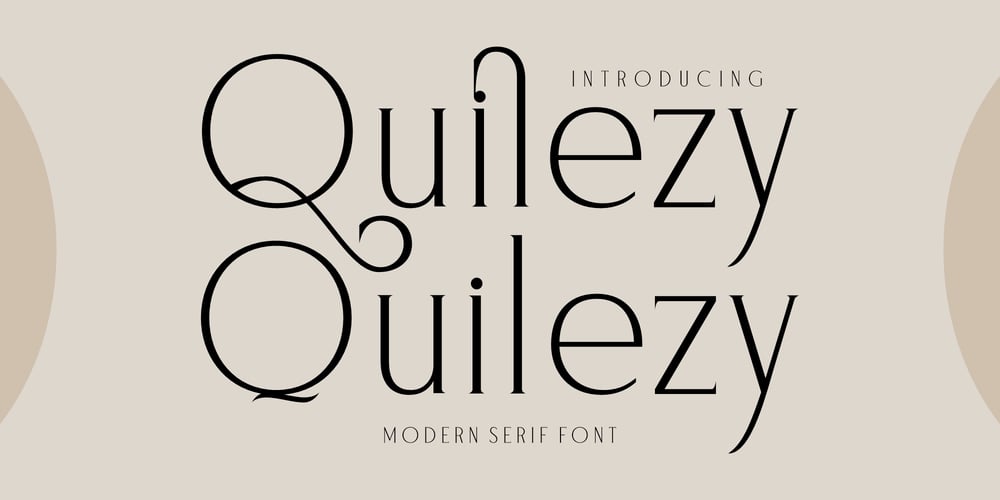
Quilezy
Quilezy font
Quilezy Font Family was designed by Heru Utama Putra and published by Letterena Studios. Quilezy contains 2 styles and family package options. Quilezy is a modern and classic serif font that has its own unique style & modern look.This typeface is perfect for an elegant & luxurious logo, book or movie title design, fashion brand, magazine, clothes, lettering, quotes, and so much more